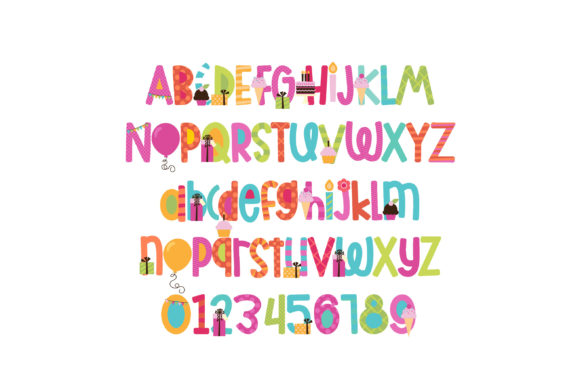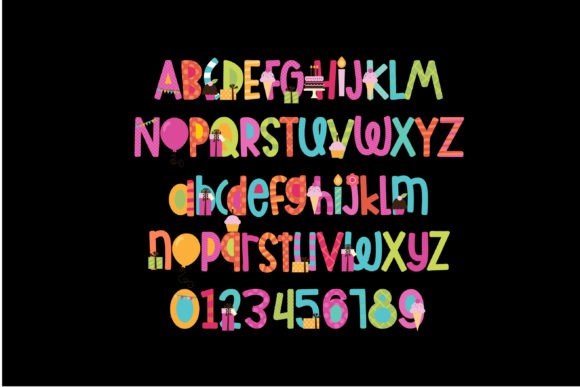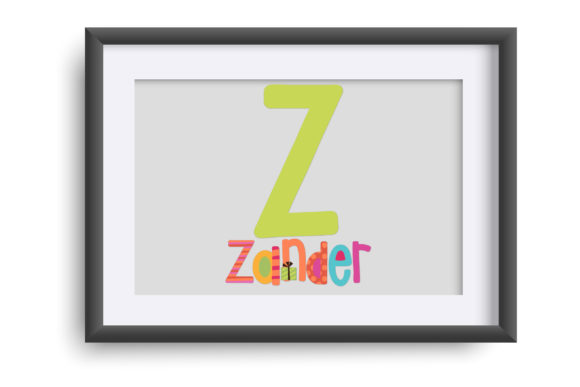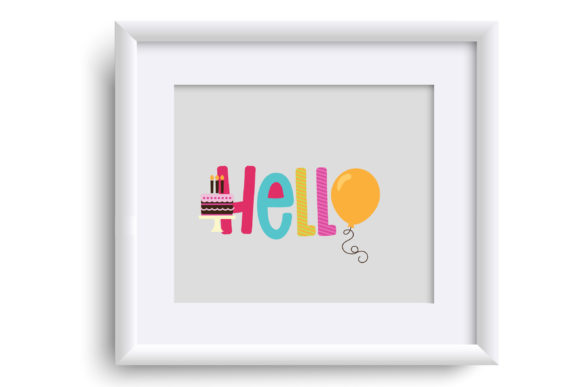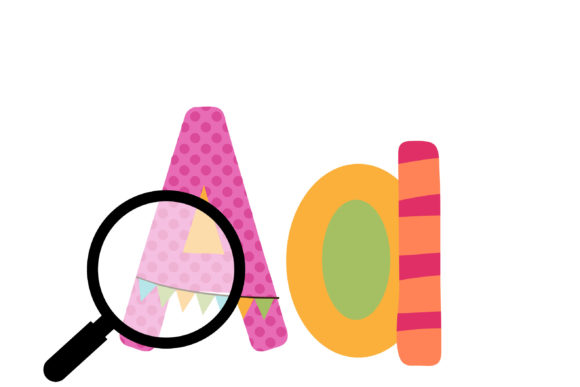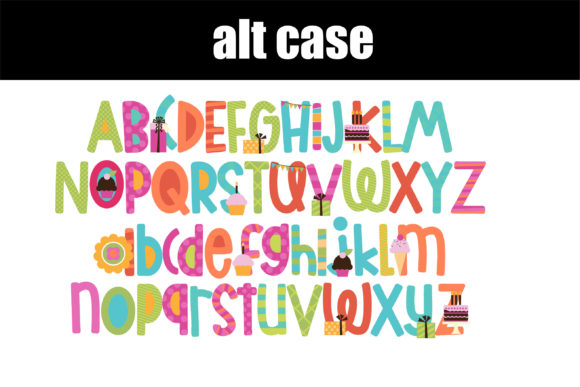
Introducing Dear Birthday Font: The Ultimate Celebration Companion for Designers and Crafters
Are you tired of using the same old fonts for your birthday-themed designs? Look no further! Dear Birthday Font is here to revolutionize your creative projects with its vibrant, full-color lettering and adorable birthday imagery. This stunning font is perfect for designers and crafters seeking to add a personal touch to their birthday-related designs.
What Makes Dear Birthday Font So Special?
Dear Birthday Font is a game-changer in the world of typography, offering a unique blend of colorful lettering and festive birthday imagery. Each letter is meticulously designed to bring a celebratory feel to your projects, making it ideal for:
- Birthday cards and invitations
- Party decorations and banners
- Custom gifts and personalized items
- Social media posts and digital graphics
Dear Birthday Font is PUA (Private Use Area) encoded, which means you can effortlessly access all the amazing glyphs and ligatures. This feature allows you to:
- Easily switch between different lettering styles
- Add unique flourishes to your designs
- Create custom phrases and words
Dear Birthday Font is a color font (Opentype-SVG), making it compatible with:
Tips and Tricks for Using Dear Birthday Font
Get the most out of Dear Birthday Font with these expert tips:
- Experiment with different color combinations to match your brand or design theme
- Use the font’s built-in ligatures to create flowing, connected lettering
- Mix and match glyphs to create unique phrases and words
- Pair Dear Birthday Font with other fonts for a bold, contrasting look
Why Choose Dear Birthday Font?
By choosing Dear Birthday Font, you’ll get:
- A unique and exclusive font that will elevate your designs
- Easily accessible glyphs and ligatures thanks to PUA encoding
- Compatibility with popular design software